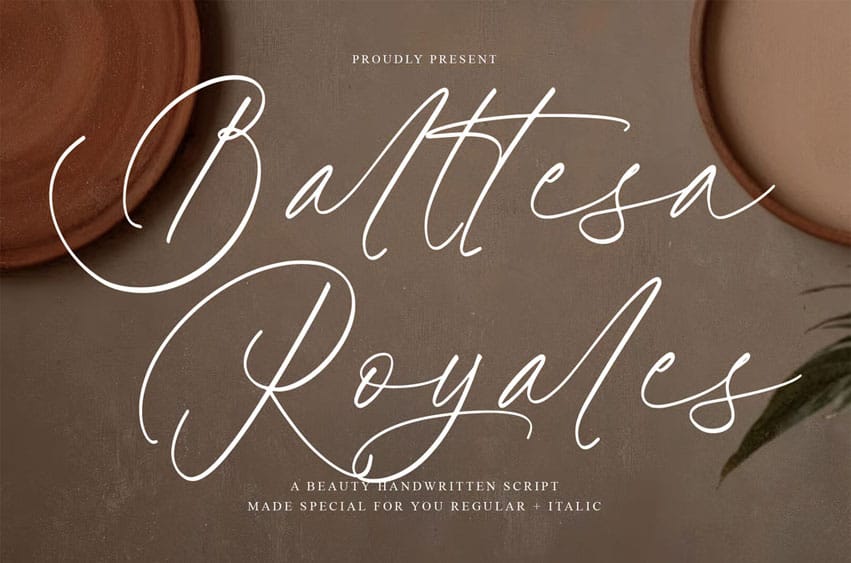
Balltesa Royales Font is a beautiful handwritten script font that radiates elegance, sophistication, and timeless charm. With its delicate curves, graceful strokes, and luxurious handwritten style, this font is the perfect choice for projects that require a touch of class and femininity. Whether you’re designing wedding invitations, beauty branding, social media content, or elegant packaging, Balltesa Royales brings a refined, high-end look to every creation.
Elegant handwritten script with a soft, flowing style Includes uppercase, lowercase, numerals, punctuation, and special characters OpenType features with ligatures and stylistic alternates for natural variation Multilingual support for global design needs Ideal for beauty brands, fashion, weddings, lifestyle blogs, and premium packaging Combines readability with a luxurious handwritten aesthetic Elevate your designs with the graceful beauty of Balltesa Royales — download now and let your creativity speak in elegant script!
Perfect for:
- Branding and Logos
- Invitations
- Social Media Content
- Website Headers
- Personal Design & more!